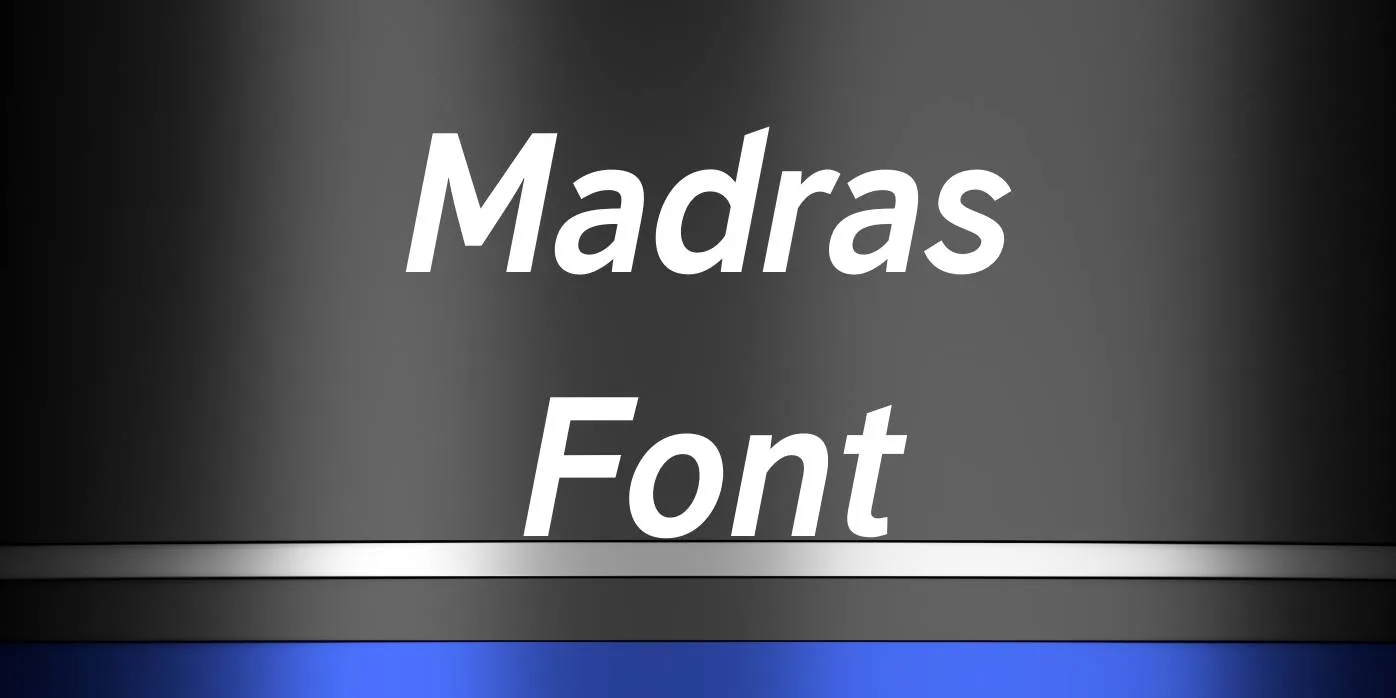
Madras Font
Today, we will present a very popular and well-known typeface that is Madras Font. This typeface was developed and published by Thomas Gillett. It belongs to the Sans-Serif typeface. This tremendous typeface is available in seven famous styles.
This typeface is a very versatile typeface that can be used in different ways and for different purposes. It has a modern look and feels to it and it is perfect for headlines, logos, posters, and other creative designs. It is the same as comparing it with other popular typefaces such as Helvetica Font and Arial font. This typeface is best for different software like Canva, MS Word, and Adobe Illustrator.